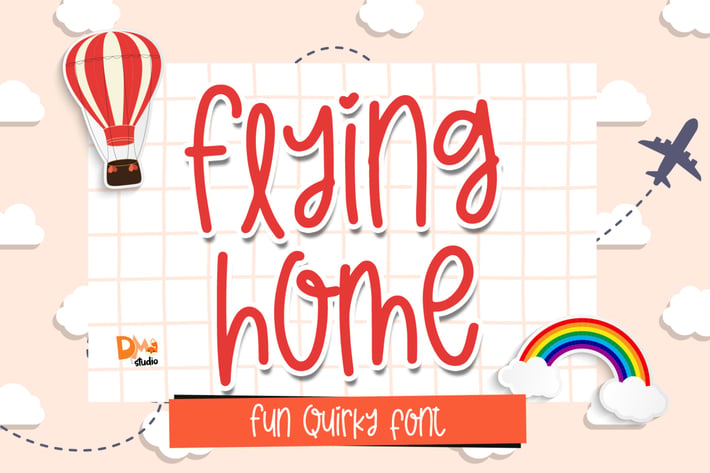
Flying Home - Quirky Font
Flying Home is a quirky and playfully handwritten font. Great for any seasons, for any project!
Be creative and fun using this crafty font!